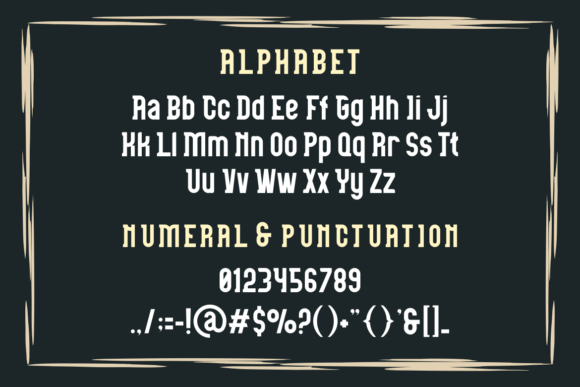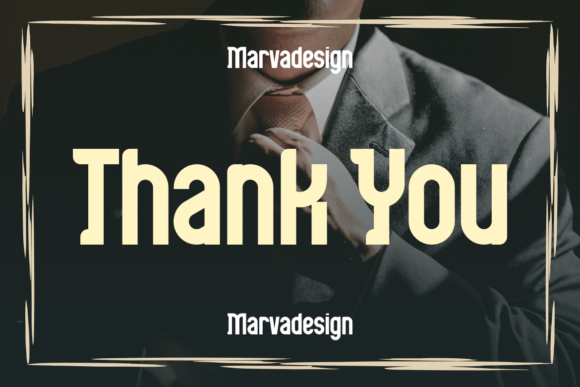
Introducing Deceiver Font: Elevate Your Craft with a Vintage Flair
In the world of design, typography plays a crucial role in capturing the essence of a brand or product. A font can make or break the visual appeal of a project, and that’s where Deceiver Font comes into play. This cool, vintage-style display font has a broad appeal that can instantly elevate your craft, making it stand out from the competition. In this article, we’ll dive into the features and benefits of Deceiver Font, and explore how it can enhance your design projects.
The Charm of Deceiver Font
Deceiver Font is a carefully crafted typeface that exudes a sense of nostalgia and sophistication. Its vintage-inspired design makes it perfect for projects that require a touch of classic elegance. The font’s unique character set and distinctive style ensure that your text will never go unnoticed. Whether you’re working on a logo, poster, or packaging design, Deceiver Font is sure to add a dash of personality to your craft.
Key Features of Deceiver Font
- Vintage-style design: Deceiver Font boasts a classic, timeless look that’s reminiscent of traditional print media.
- Broad appeal: The font’s versatility makes it suitable for a wide range of projects, from branding and advertising to packaging and editorial design.
- Easy to use: Deceiver Font is designed to be user-friendly, making it simple to integrate into your design workflow.
- High-quality design: The font is meticulously crafted to ensure that it looks great in any context, from digital screens to print materials.
Benefits of Using Deceiver Font
So, why choose Deceiver Font for your design projects? Here are just a few benefits of using this exceptional typeface:
- Instant recognition: Deceiver Font’s unique design ensures that your text will grab attention and leave a lasting impression.
- Enhanced creativity: The font’s vintage flair can inspire creativity and add a touch of personality to your designs.
- Time-saving: With Deceiver Font, you can achieve professional-looking results with minimal effort, saving you time and resources.
- Competitive edge: By using a distinctive font like Deceiver, you can differentiate your brand or product from the competition and establish a strong visual identity.
How to Use Deceiver Font in Your Designs
Integrating Deceiver Font into your design workflow is easy. Here are a few tips to get you started:
- Pair it with neutral fonts: Combine Deceiver Font with neutral fonts to create a striking contrast and add visual interest to your design.
- Experiment with colors: Deceiver Font looks great in a range of colors, so don’t be afraid to experiment and find the perfect hue for your design.
- Use it for headlines and titles: Deceiver Font is perfect for headlines and titles, where its bold and attention-grabbing design can shine.
In conclusion, Deceiver Font is a versatile and stylish typeface that can elevate your design projects with its vintage flair. With its broad appeal, ease of use, and high-quality design, this font is perfect for designers and crafters looking to add a touch of personality to their work. Whether you’re working on a branding project, packaging design, or editorial layout, Deceiver Font is sure to make your craft stand out from the competition.